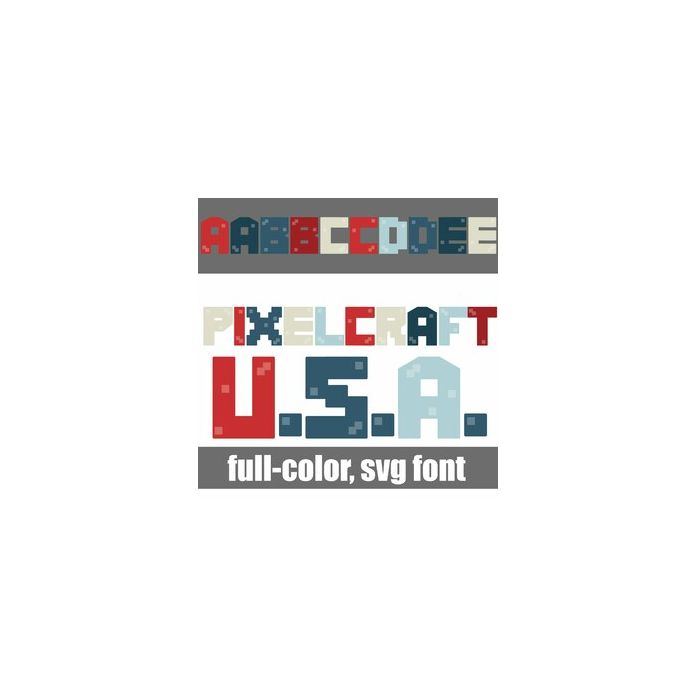
This full-color font features blocky, pixelized font is an Americana color palette. There is an alt case w/ additional colors you can access through your system or Silhouette's glyph map.